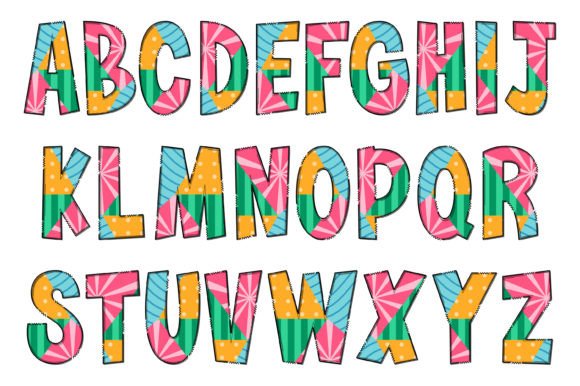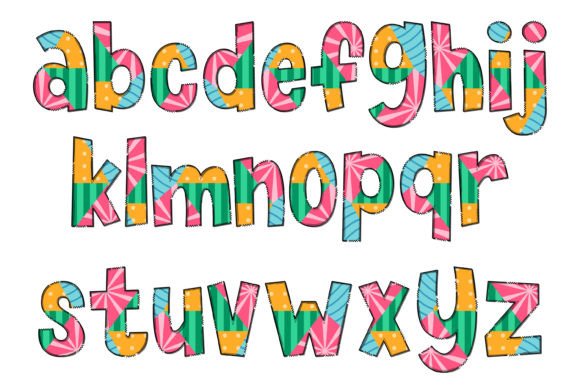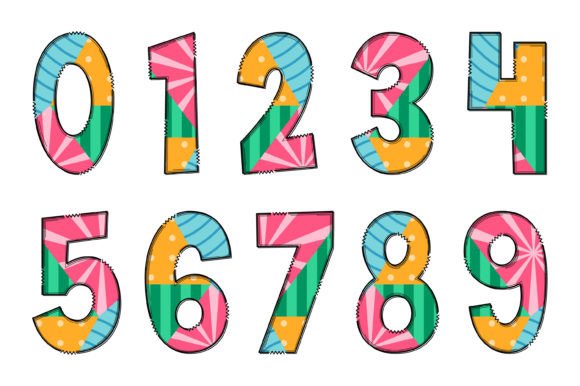
Introducing the Colorful Geometric Font: A Playful and Artistic Addition to Your Designs
Are you looking for a font that can add a touch of playfulness and artistic flair to your designs? Look no further than the Colorful Geometric Font! This vibrant and whimsical font is perfect for designs that require a fun and engaging feel, such as children’s books, posters, invitations, greeting cards, and more.
What Makes the Colorful Geometric Font So Special?
The Colorful Geometric Font is a unique and eye-catching font that is sure to capture the attention of your audience. Its geometric shapes and bright colors create a visually appealing effect that is both modern and playful. The font is easy to read, making it perfect for young audiences, and its whimsical design ensures that it will add a touch of personality to any design.
Uses for the Colorful Geometric Font
The Colorful Geometric Font is a versatile font that can be used in a variety of designs, including:
• Children’s books: The font’s playful and engaging design makes it perfect for children’s books, adding a touch of fun and personality to the text.
• Posters: The font’s bold and colorful design makes it perfect for posters, grabbing the attention of your audience and adding a touch of creativity to your design.
• Invitations: The font’s whimsical design makes it perfect for invitations, adding a touch of personality and playfulness to your event.
• Greeting cards: The font’s colorful and engaging design makes it perfect for greeting cards, adding a touch of fun and personality to your message.
Tips for Using the Colorful Geometric Font
Here are a few tips for getting the most out of the Colorful Geometric Font:
• Experiment with different colors: The font’s color design allows you to experiment with different colors and combinations, adding a unique touch to your design.
• Mix and match with other fonts: The font’s playful design makes it perfect for pairing with other fonts, adding a touch of personality and creativity to your design.
• Use it for headings and titles: The font’s bold and colorful design makes it perfect for headings and titles, adding a touch of creativity and playfulness to your design.
The Colorful Geometric Font is a unique and playful font that is perfect for designers and crafters looking to add a touch of artistic flair to their designs. Its whimsical design, bright colors, and ease of use make it perfect for a variety of designs, from children’s books to posters and invitations. With its compatibility with PhotoShop, Illustrator, Silhouette, and Inkscape, you can easily incorporate this font into your design workflow.